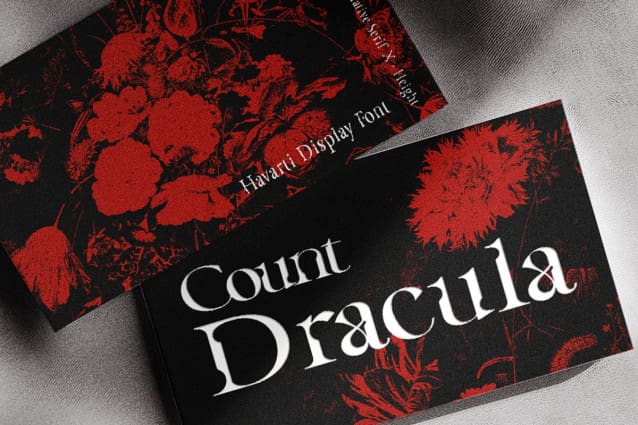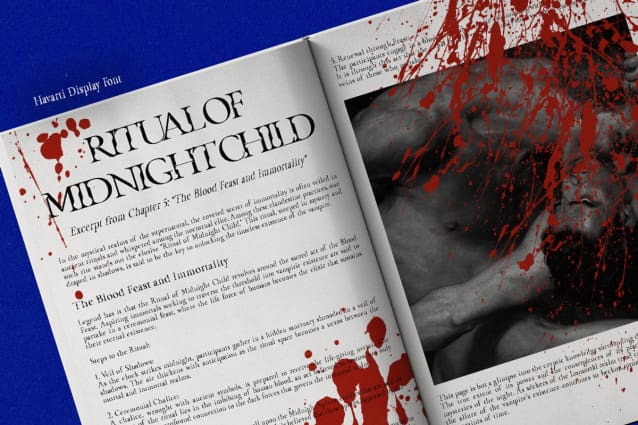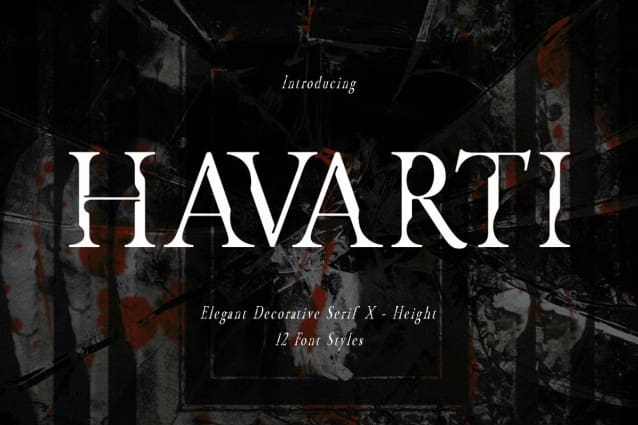
Havarti Font
Havarti Font is a captivating serif font offering a unique combination of classic elegance and contemporary flexibility. With its distinct x-height variations (normal and tall) and three width options (expanded, regular, and condensed), Havarti Font empowers you to tailor your text to perfectly match your design vision. Havarti’s versatility, captured in the image’s diverse presentations, makes it a maestro of typography for various design projects:
Logos and branding: Create memorable brand identities with Havarti’s impactful presence and adjustable styles, as showcased in the image.
Editorial and book design: Deliver exceptional readability and elegance to your publications with Havarti’s classic serif style and variable x-height options, like the ones displayed in the image.
Marketing materials: Craft eye-catching brochures, posters, and social media graphics with Havarti’s ability to command attention and convey information effectively, evident in the image.
Web design: Enhance the user experience of your website with Havarti’s clear and adaptable letterforms that scale beautifully for various screen sizes, like in the image.